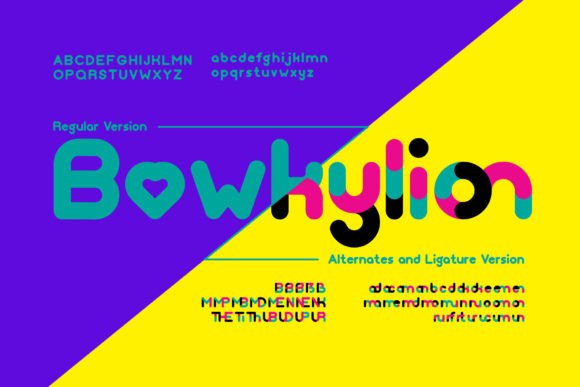
The Designer’s Delight: Getting to Know Bowkylion Font
I’ll never forget the time I was working on a branding project for a trendy boutique, and I just couldn’t find the right font to capture their playful yet sophisticated vibe. The client was specific about wanting something that would stand out, but still be elegant enough for their business cards and website. After hours of scouring through font libraries, I stumbled upon Bowkylion – and it was love at first sight! ✨ In this article, I’ll share my experience with this beautiful display font, its features, and how you can make the most of it in your creative projects.
An Honest Review of Bowkylion Font
What I Love About Bowkylion
• Unique and quirky design that adds a touch of personality to any project 🎉
• Excellent for display purposes, such as titles, headings, and logos 📚
• Works well with a variety of design styles, from modern to vintage 🔄
• Easy to read, even in larger sizes, making it perfect for posters and billboards 📢
• OpenType features, including stylistic alternates and glyphs, offer endless creative possibilities 🎨
While Bowkylion is an amazing font, there are a few things to keep in mind: 🤔
• May not be the best choice for body text, as it can be a bit too ornate for longer paragraphs 📝
• Some characters, like the lowercase ‘q’ and ‘p’, may appear a bit similar, which can affect legibility in certain contexts ⚠️
The Story Behind Bowkylion
Bowkylion was designed with one goal in mind: to create a unique, eye-catching display font that would add a touch of personality to any project. Inspired by the eclectic mix of street art, vintage posters, and modern typography, Bowkylion’s creator aimed to craft a font that would stand out in a crowd. And, judging by its growing popularity, it’s safe to say they’ve succeeded! 🎉
Q: What type of projects is Bowkylion best suited for?
A: Bowkylion is perfect for creative projects that require a touch of personality, such as branding, posters, logos, and social media graphics.
Q: Is Bowkylion a difficult font to read?
A: While Bowkylion is a decorative font, it’s surprisingly easy to read, even in larger sizes. However, it may not be the best choice for body text or longer paragraphs.